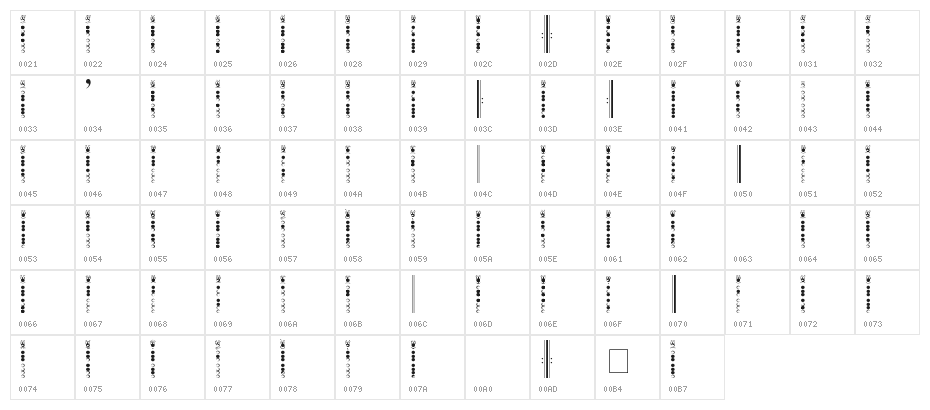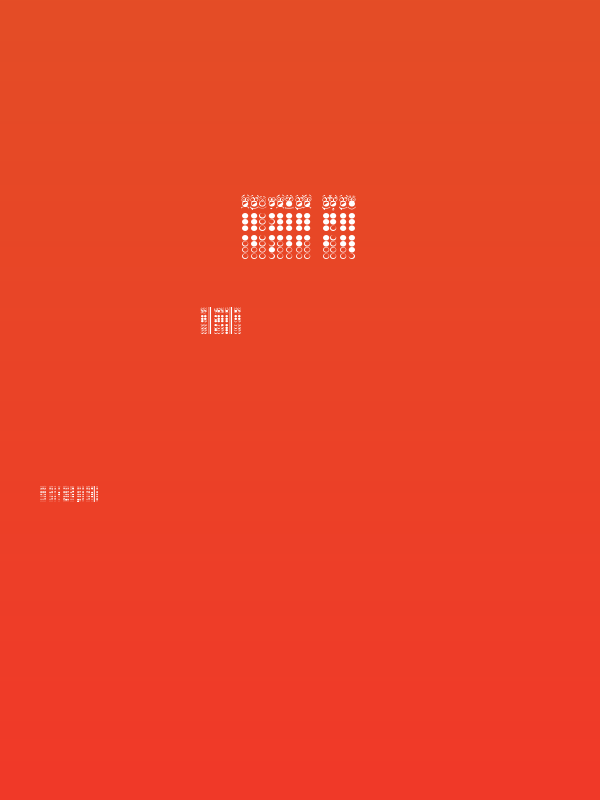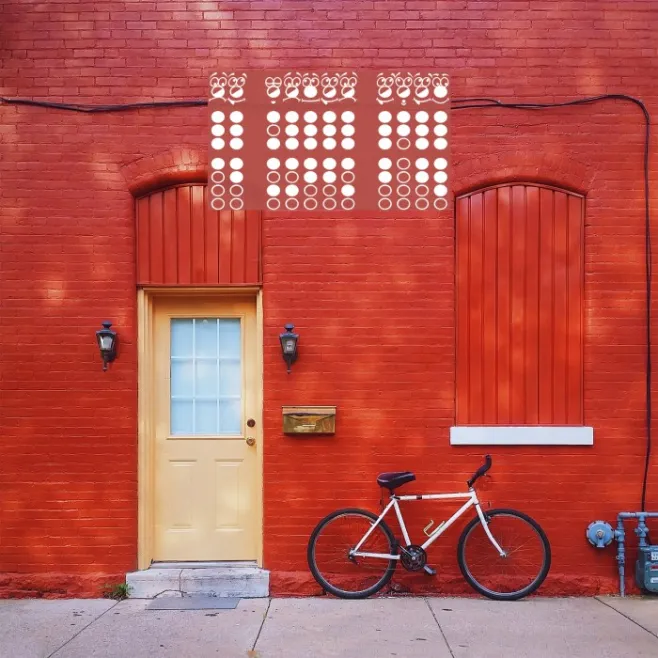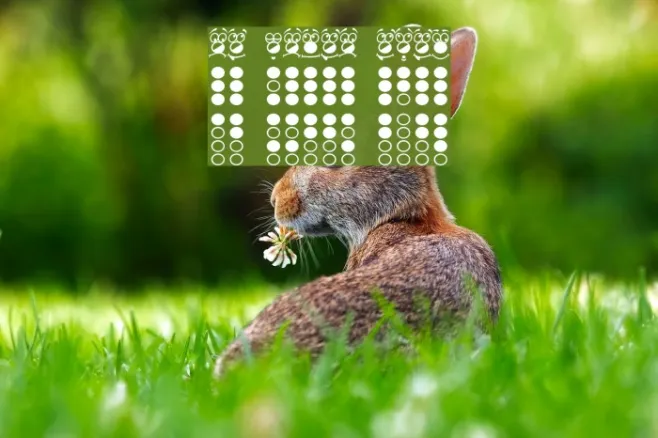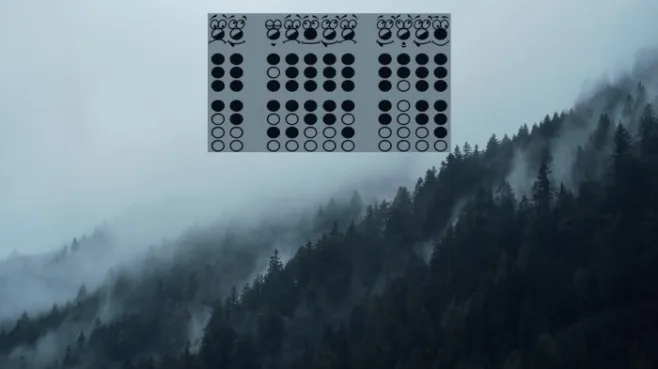
Recorder Eyes Font
Recorder Eyes Description
This font is a playful and decorative typeface featuring characters with eyes, giving each letter a whimsical and animated appearance. The design incorporates bold, circular shapes with varying levels of fill, creating a sense of depth and texture. The eyes add a unique personality to each character, making it stand out as a fun and engaging option for creative projects. The overall style is highly decorative, with a focus on visual interest and character. This font is not suitable for body text due to its intricate design but excels in capturing attention in headlines or logos.
| Proposed Projects | Ideal for children's book covers, playful branding, creative posters, and eye-catching headlines. |